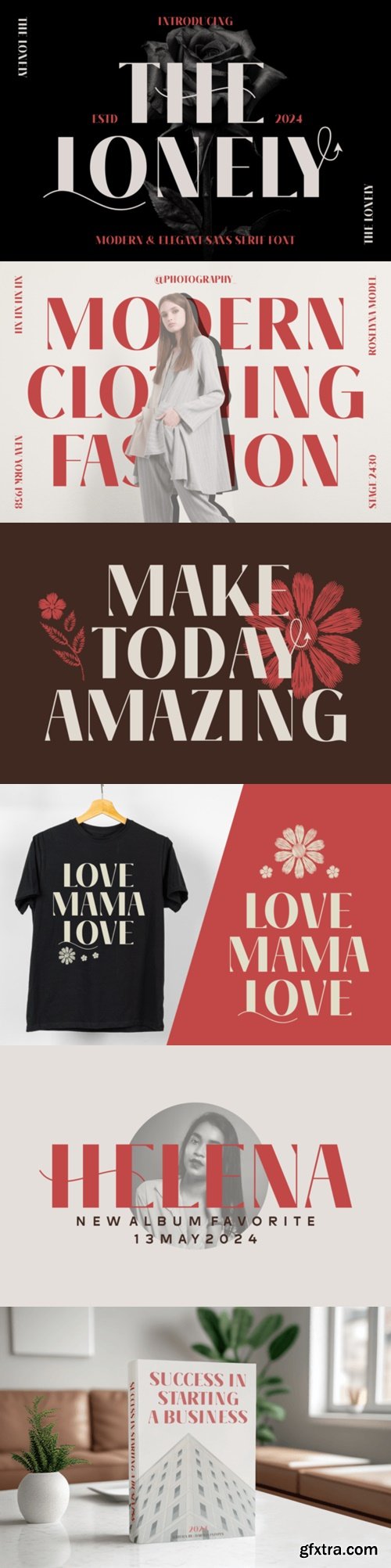
Step into the world of elegance and modern design with the exceptional The Lonely typeface. Exhibiting the finest aesthetic appeal, the font expertly fuses a contemporary edge with a classic sophistication. With its beautiful, intricately designed capital letters, Sans Serif is truly a premium font, making your words distinctive and visually stunning. It’s not just a fancy typeface; it’s a creative tool that brings a unique beauty and quality that breathes life into any project. Perfect for creating arresting headlines in magazines or enhancing the style of any text-based content, The Lonely surely elevates design to a new level of chic artistry.